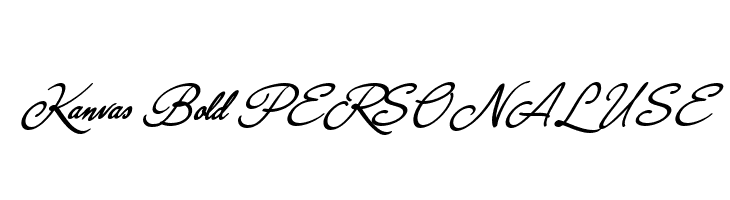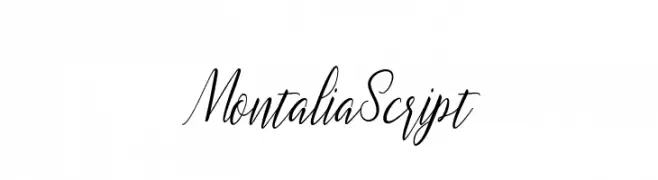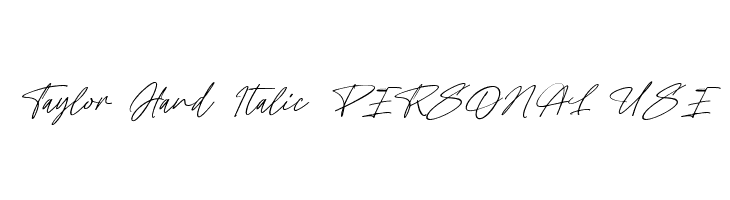
An elegant, flowing script font with graceful, connected strokes.
A dynamic brush script font with fluid, hand-painted strokes.
An elegant script font with flowing, calligraphic lines and ornate details.
A playful, casual handwritten font with smooth, rounded strokes.
A lively and expressive handwritten font with dynamic strokes and a playful style.
A bold, playful script font with a handwritten style.
A playful, handwritten font with dynamic strokes and a personal touch.
An elegant, flowing script font with a natural handwriting style.
A graceful and elegant script font with fluid, cursive strokes.
A bold, dynamic script font with fluid, connected letterforms and a hand-lettered calligraphy style.